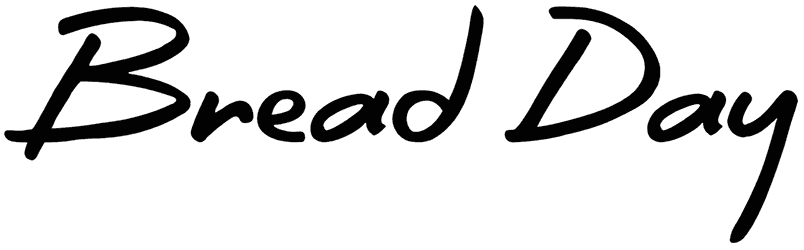
Bread Day Font
Thanks to its natural and elegant simplicity, you can add Bread Day everywhere and bring human nature to it. This bakery font has a clean design that maintains legibility well, and its structured mode can be very suitable for designers who don’t like clutter.
With a modern and attractive look, you can use this script font for headlines, subheadings, posters, personal letters, and packaging writings, and don’t worry about your content being ignored.